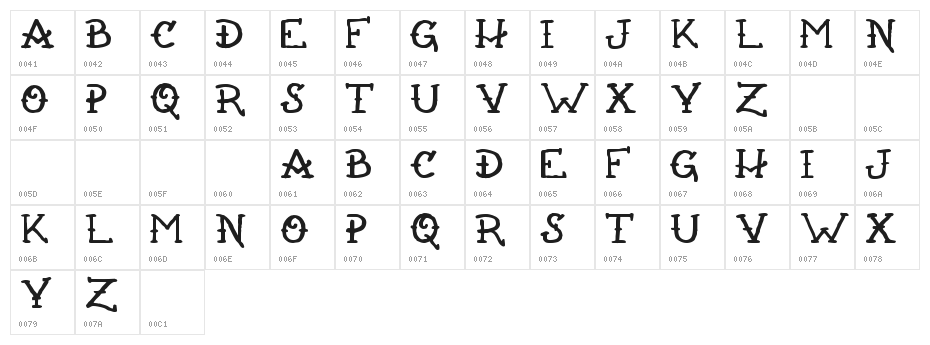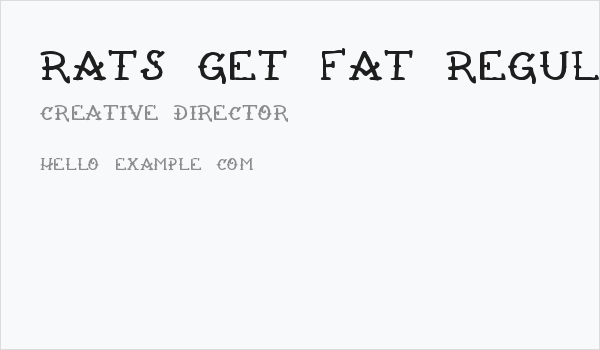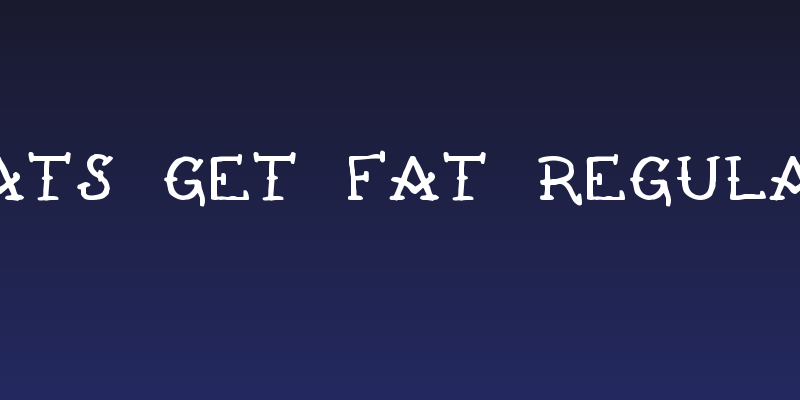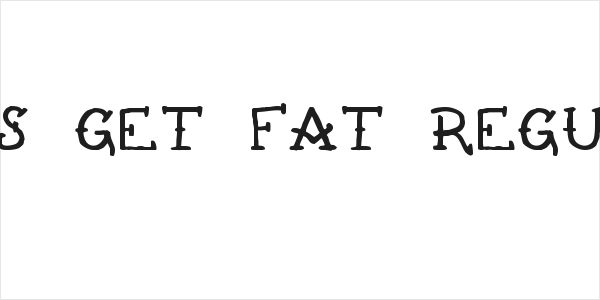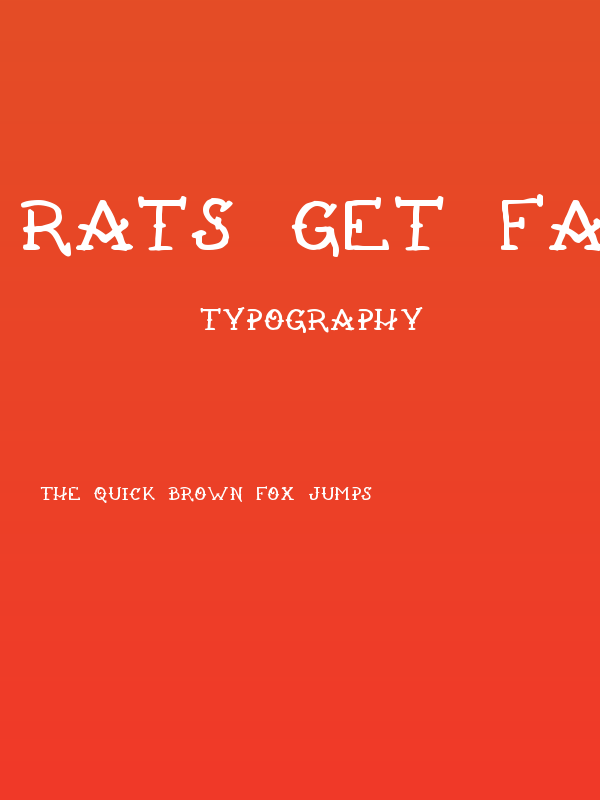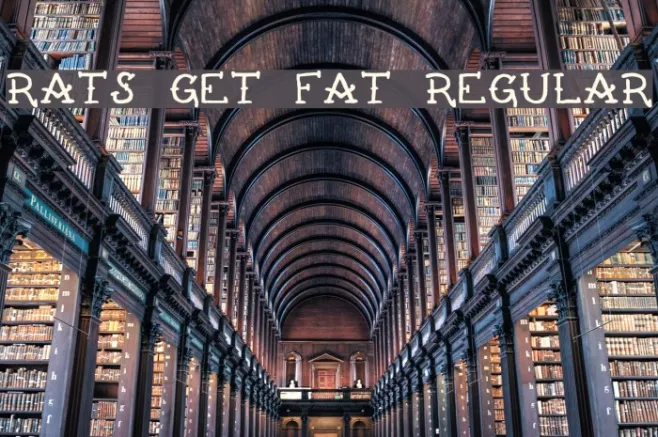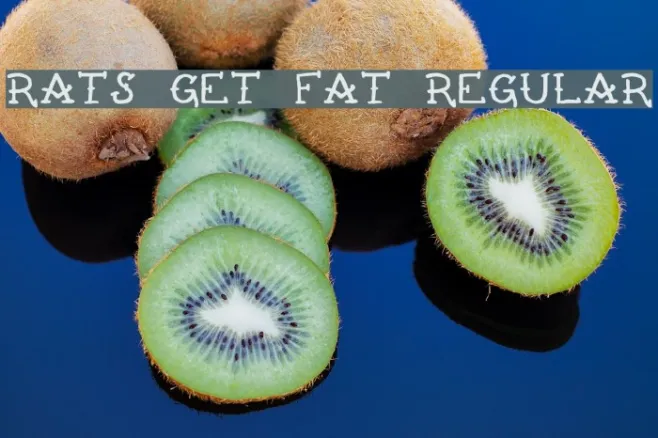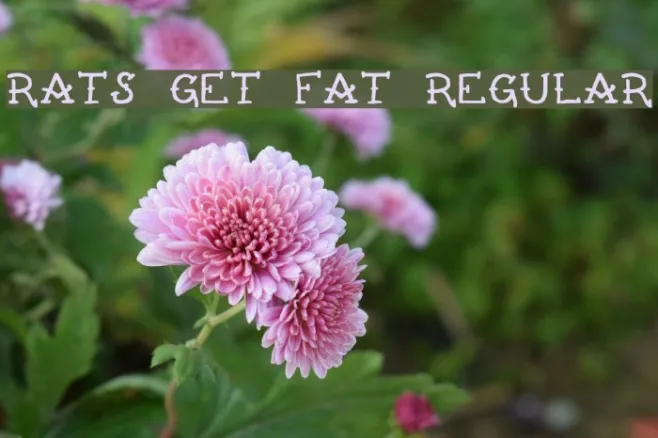
Rats Get Fat Regular Font
Rats Get Fat Regular Description
This font features a playful and quirky design with a hand-drawn aesthetic. The characters are bold and slightly irregular, giving them a whimsical and artistic feel. The strokes are uneven, with some letters having exaggerated curves and angles, adding to the font's unique personality. It has a casual and informal style, making it suitable for creative and fun projects. The font maintains a consistent weight throughout, with moderate spacing between characters that ensures readability while preserving its distinctive charm.
| Overall Style | Whimsical, Artistic |
| Proposed Projects | Ideal for children's books, greeting cards, playful branding, and creative posters. |